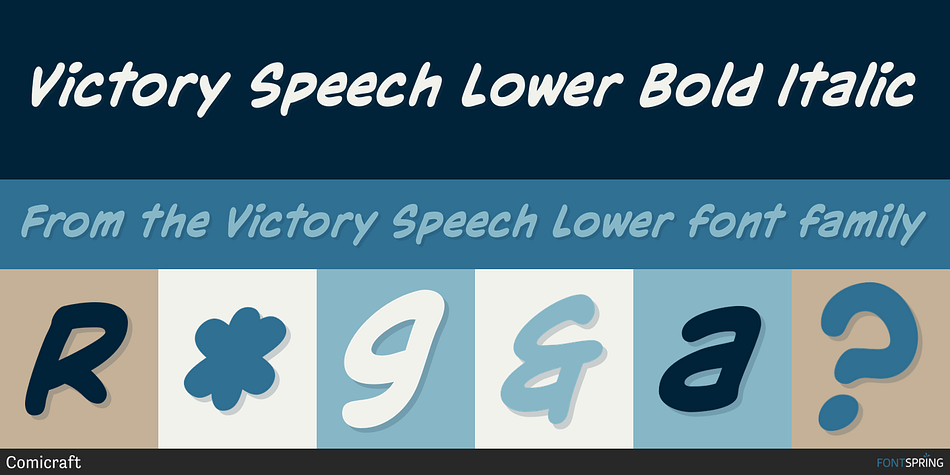
Victory Speech Lower Bold Italic
Designed by John Roshell, Victory Speech Lower is a comic and hand drawn font family. This typeface has four styles and was published by Comicraft.
Speak quietly but carry a big stick’ as President Theodore Roosevelt once said… so, with so much heated rhetoric in the air this—let’s face it, EVERY—Election season, we felt that it was important to put together a more dignified and sedate lower case edition of our popular Victory Speech font. Bad Hair and Big Sticks not included.
July 2020 – added Central Europe & Cyrillic support, Manga characters & Crossbar I Technology™
Four weights with upper & lowercase alphabets • Languages: Western & Central Europe, Cyrillic • Features: Manga characters & Crossbar I Technology™ “